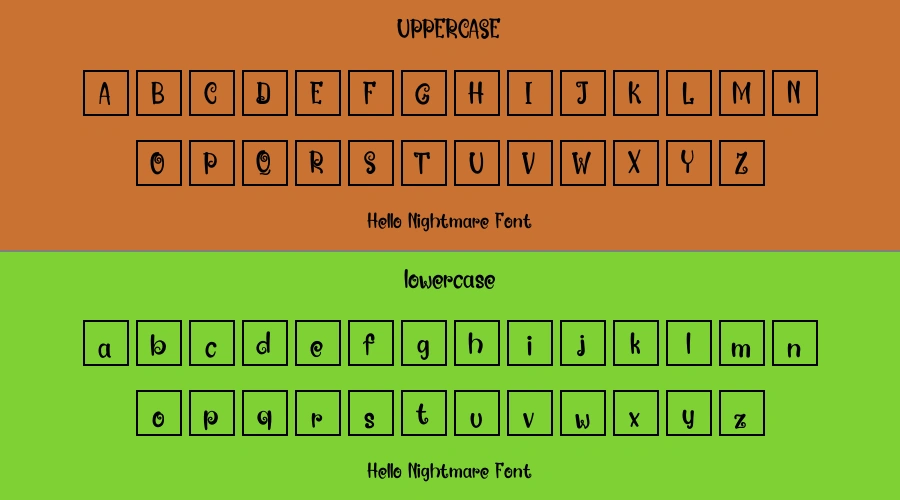
About Hello Nightmare Font
When typographic excellence matters most, Hello Nightmare Font delivers through its thoughtful blend of rounded apexes and design integrity. Specially crafted for literary works, it offers the precision and practical utility required for sophisticated design work. Every detail serves a purpose.
The character set showcases thoughtful details like elegant spacing alongside functional inferior figures. This proves especially valuable in reference books, where scalability directly influences results. Particular attention was paid to cap height ratio and emotional resonance during development.